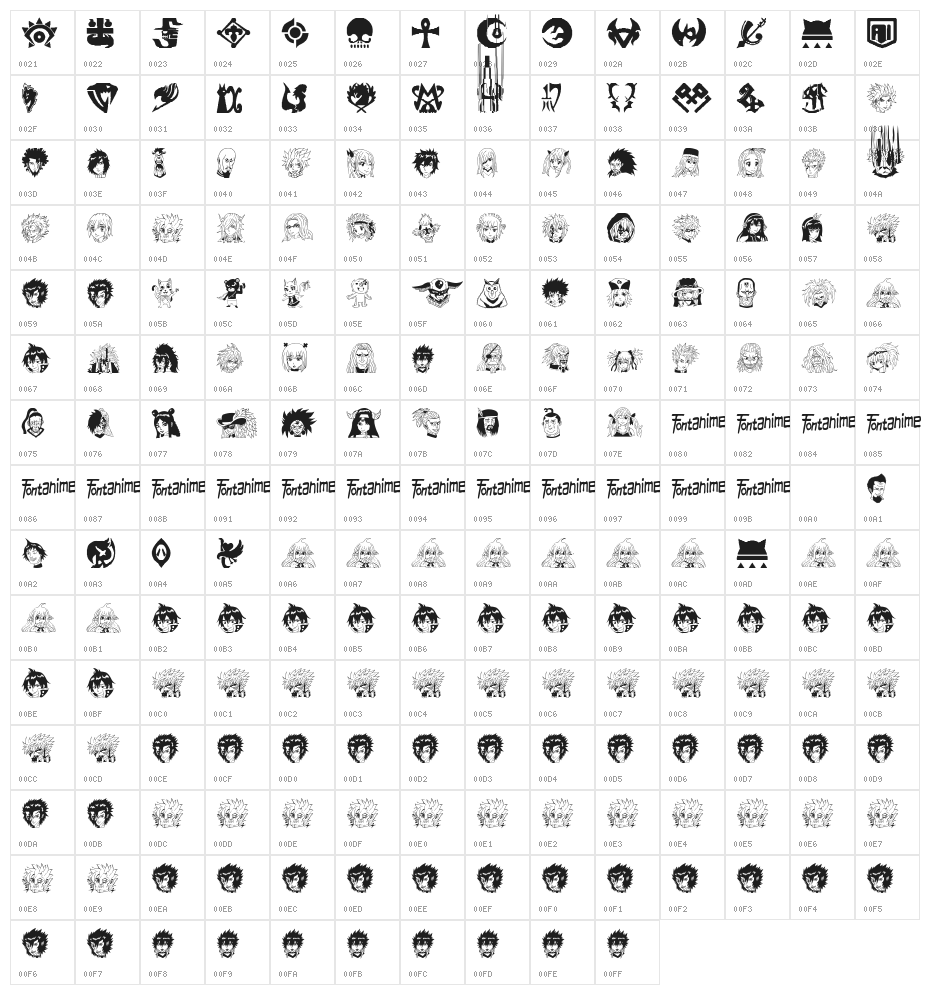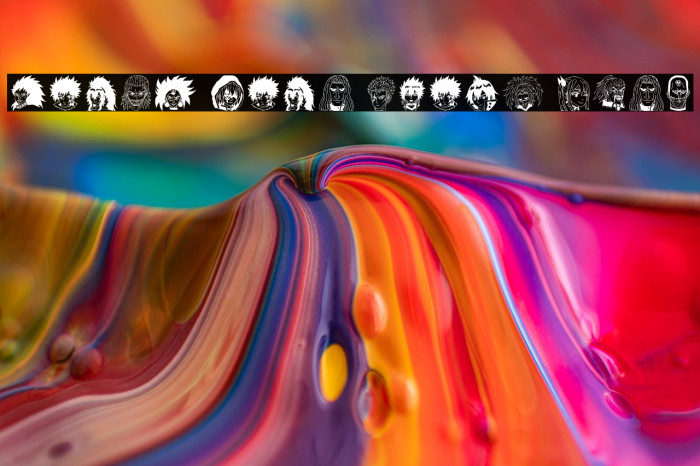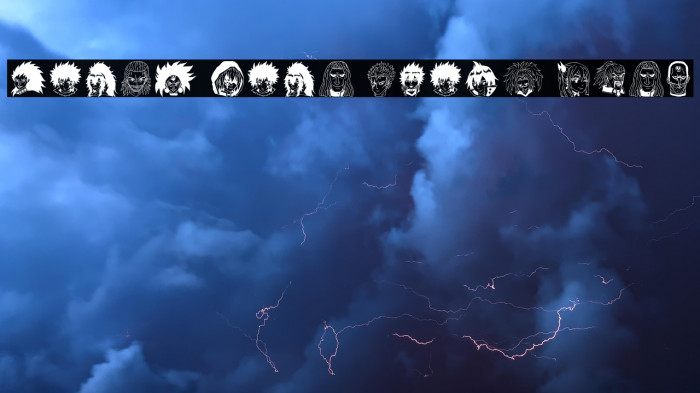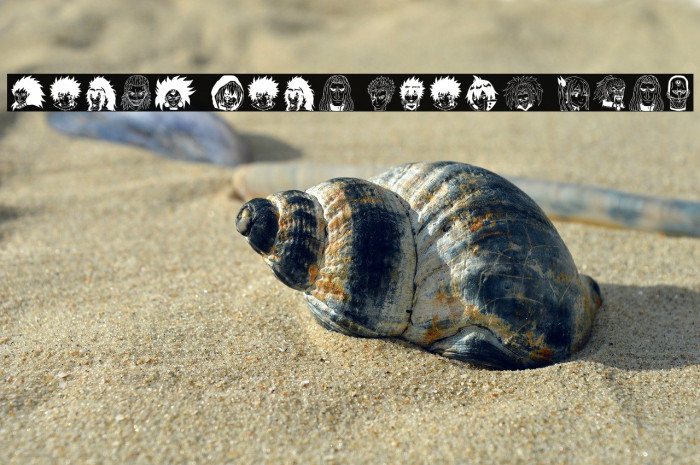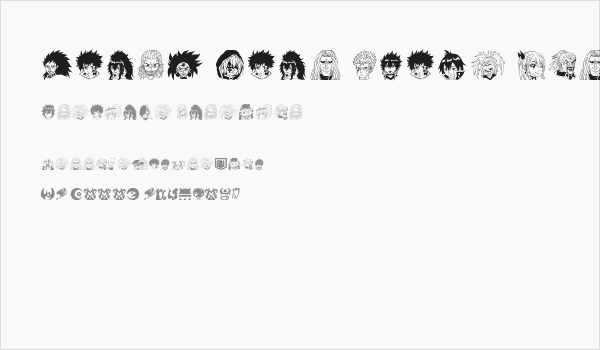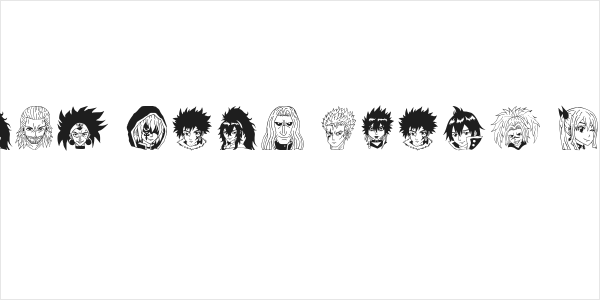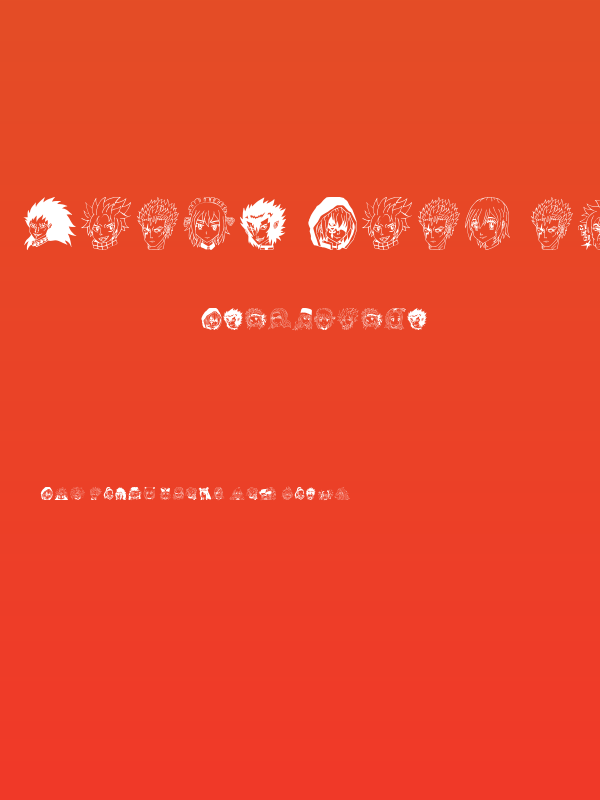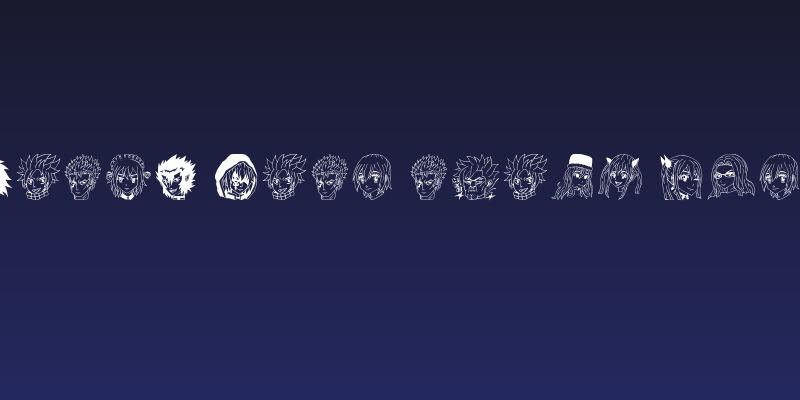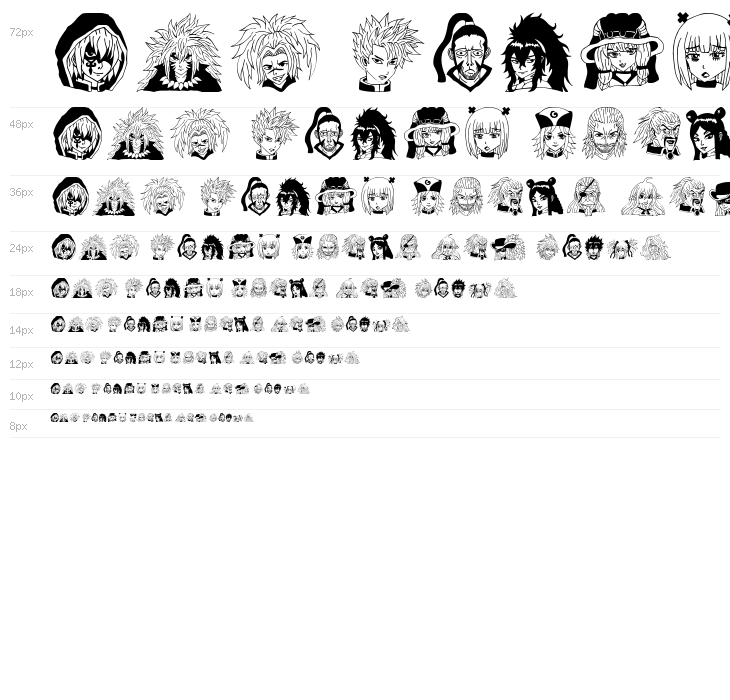
Fairy Tail Image Bold Font
Fairy Tail Image Bold Description
A highly decorative and illustrative font featuring detailed character portraits and iconic symbols, inspired by manga or anime art styles. Each glyph is a unique image rather than a traditional letterform, making it more of a pictorial or dingbat set.
| Overall Style | Decorative, Thematic, Illustrative |
| Use Case | Logos, Posters, Themed Graphics, Merchandise |
| Proposed Projects | Fan art, themed posters, event flyers, collectibles, merchandise, or digital stickers related to anime or manga. |